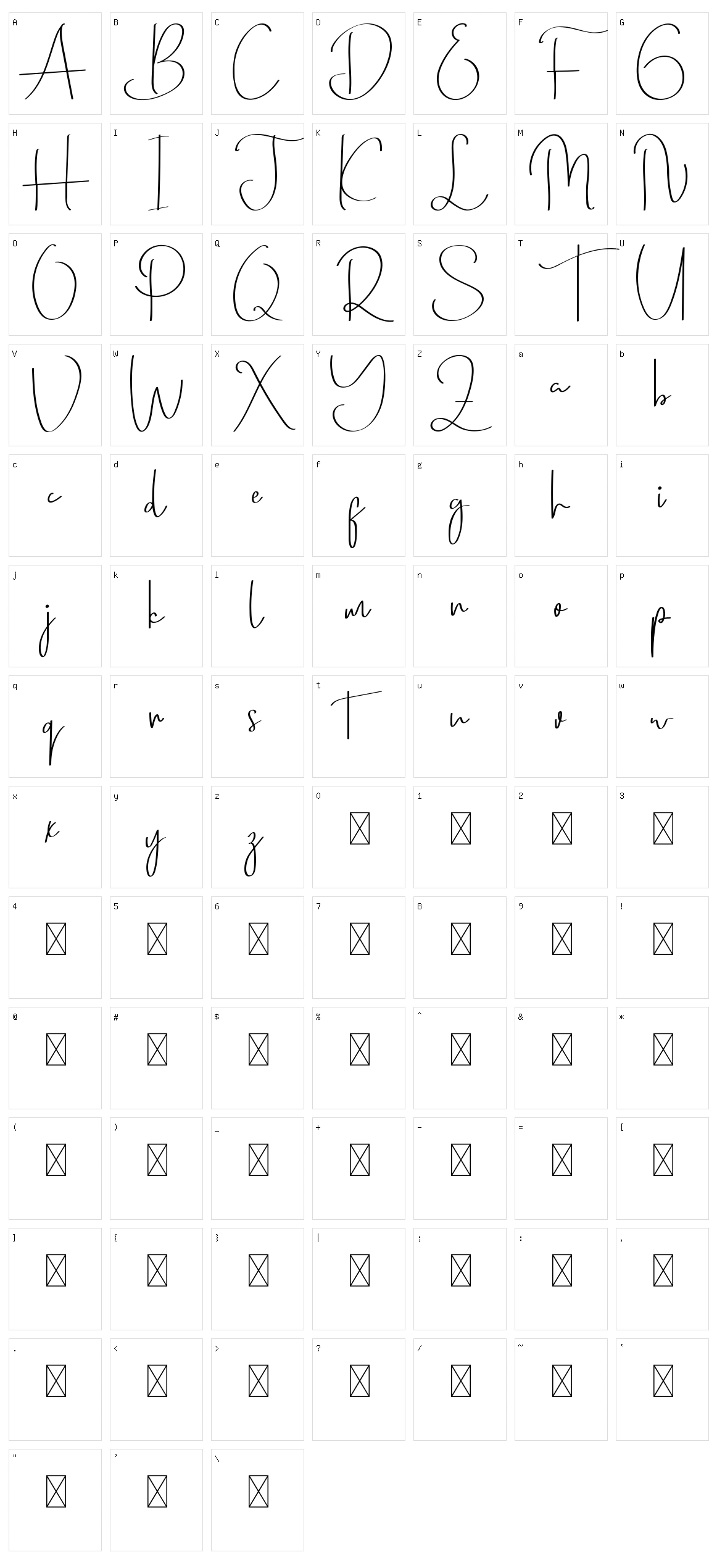
The free font Brockly is carefully designed by Edric Studio, showcasing a thoughtful balance of creativity and usability and falls under the Script font style. When you download the ZIP file, it contains only 30.18 KB of font files, making it lightweight and quick to download. Please review the license details below to understand permitted usage and distribution rights. If license information is not available, we recommend using this font for personal projects only or contacting the author directly for commercial usage permissions.